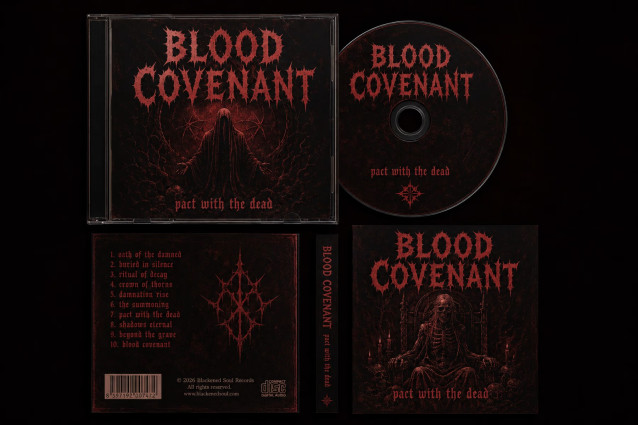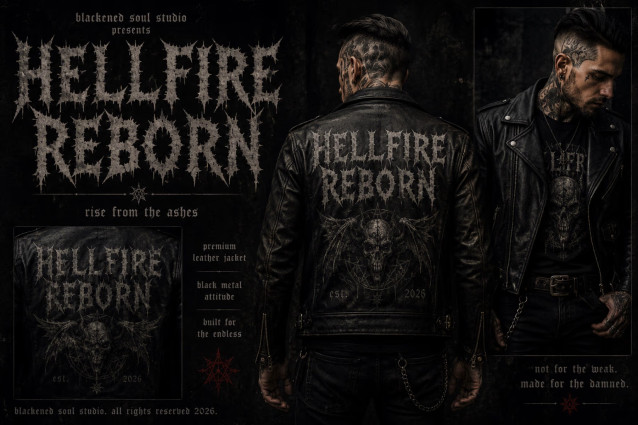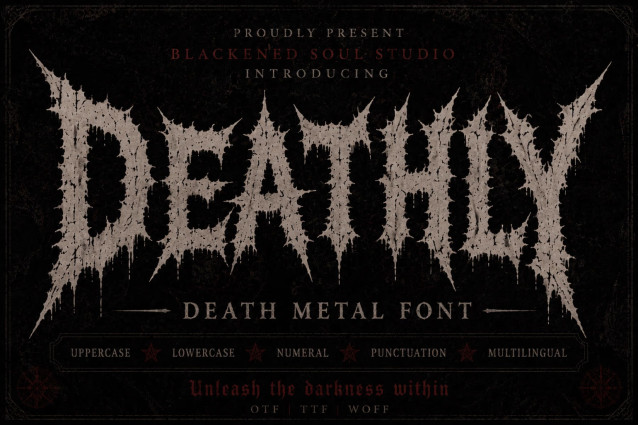
Deathly Font
Deathly – Death Metal Font
Deathly is a premium death metal font designed to deliver raw, dark, and terrifying intensity to your branding and design projects. Inspired by classic black metal and death metal aesthetics, this font blends aggressive blackletter influences with sharp, dripping edges and gothic horror elements — perfect for creating bold, unforgettable visuals.
Whether you’re designing a death metal band logo, album cover, music festival poster, or extreme metal merchandise, Deathly gives your work that authentic underground, hellish edge while remaining highly readable.